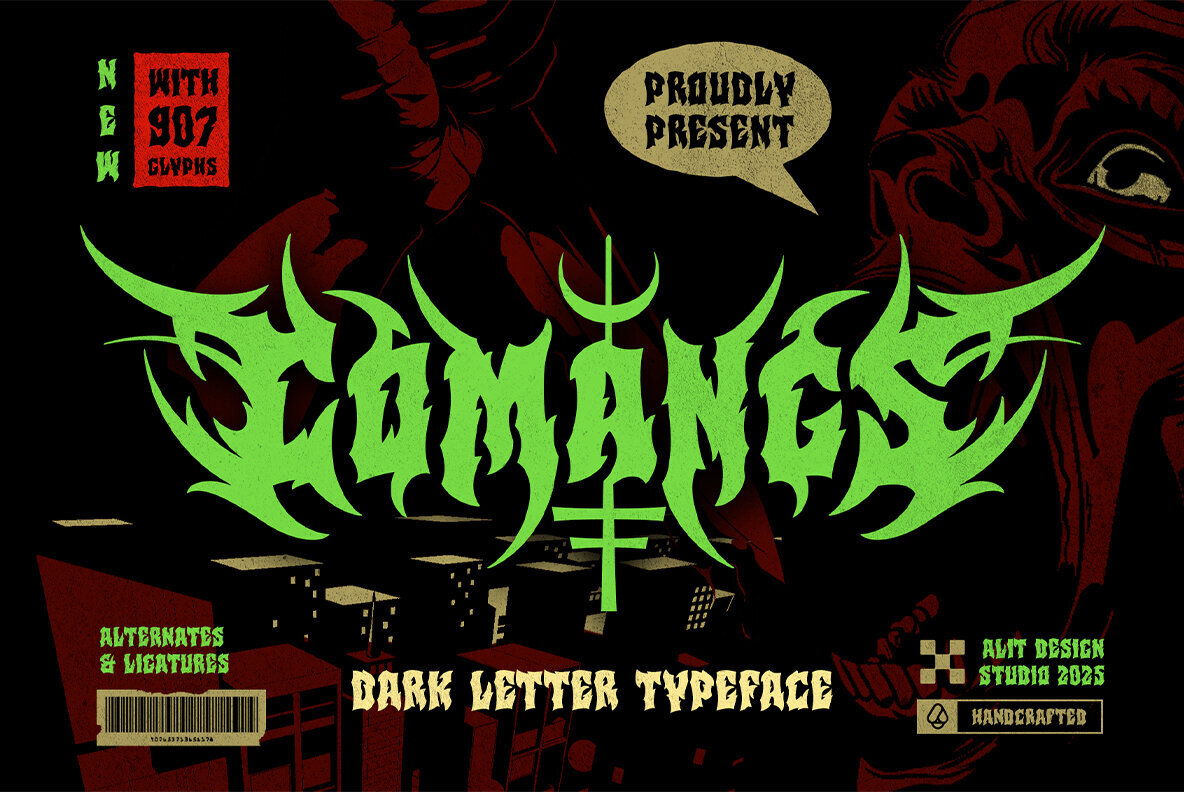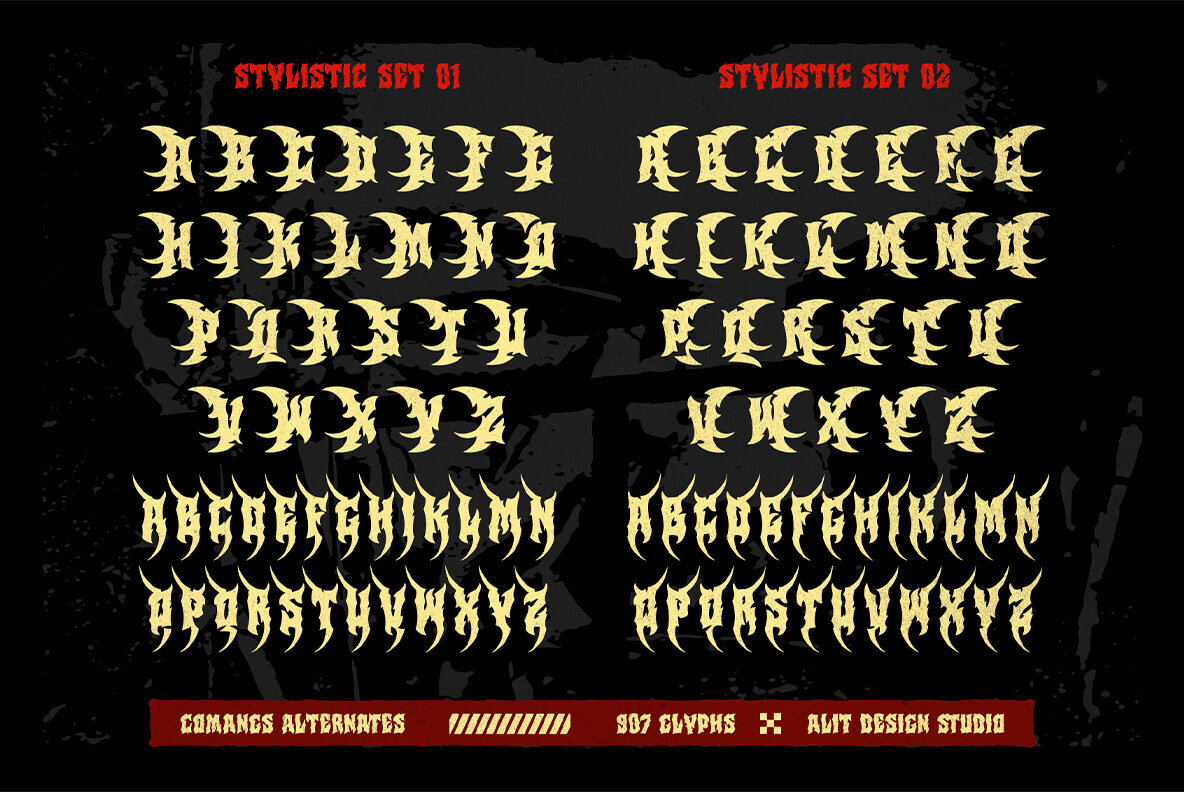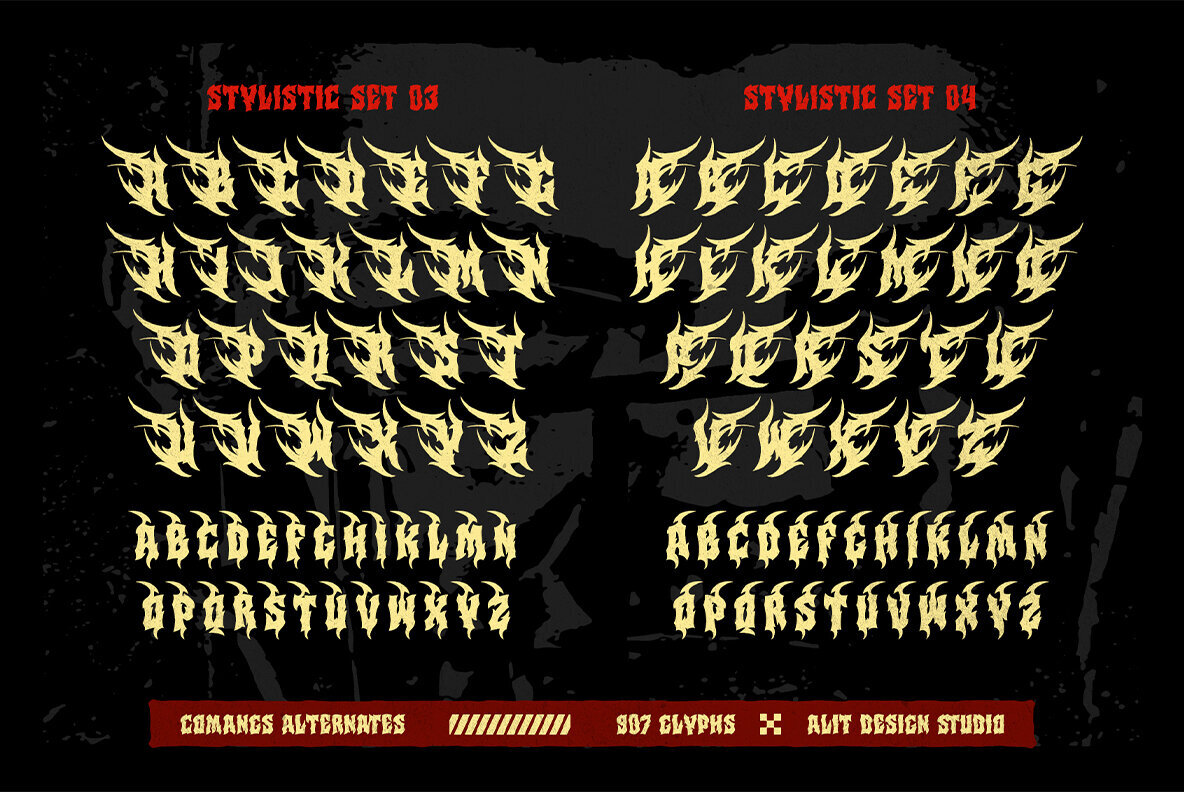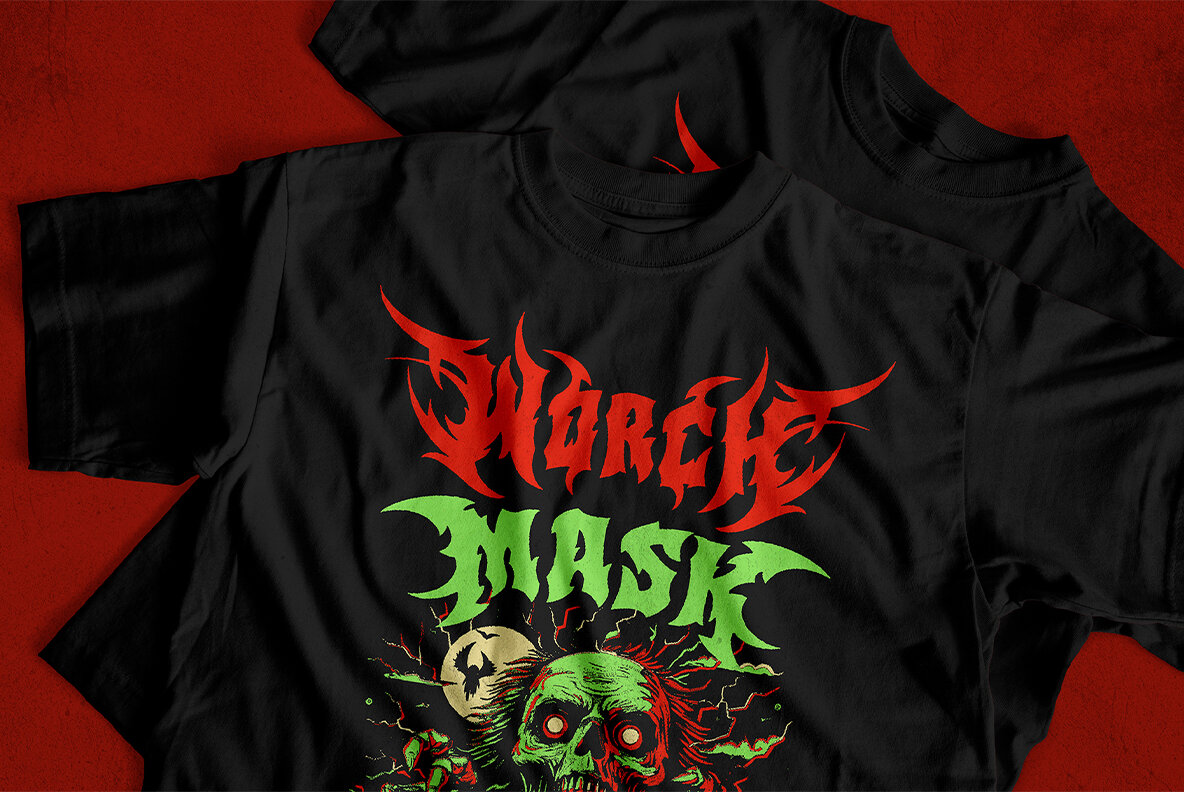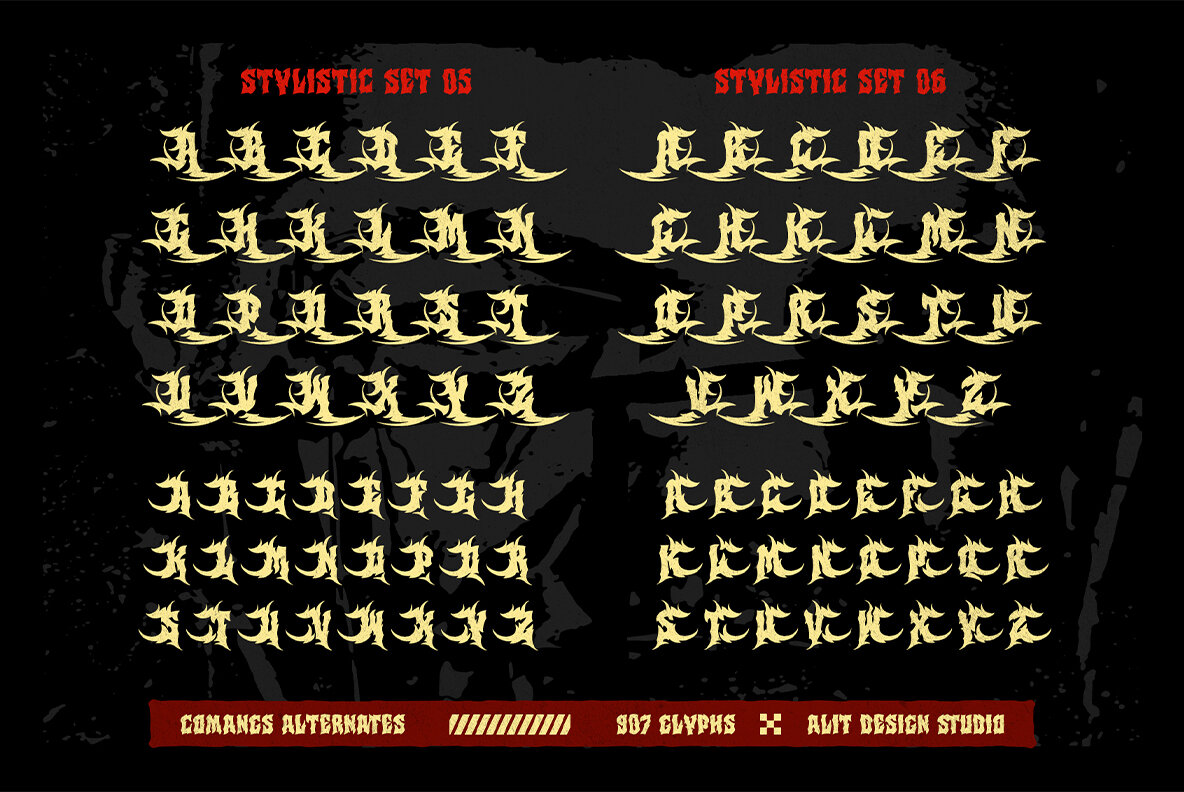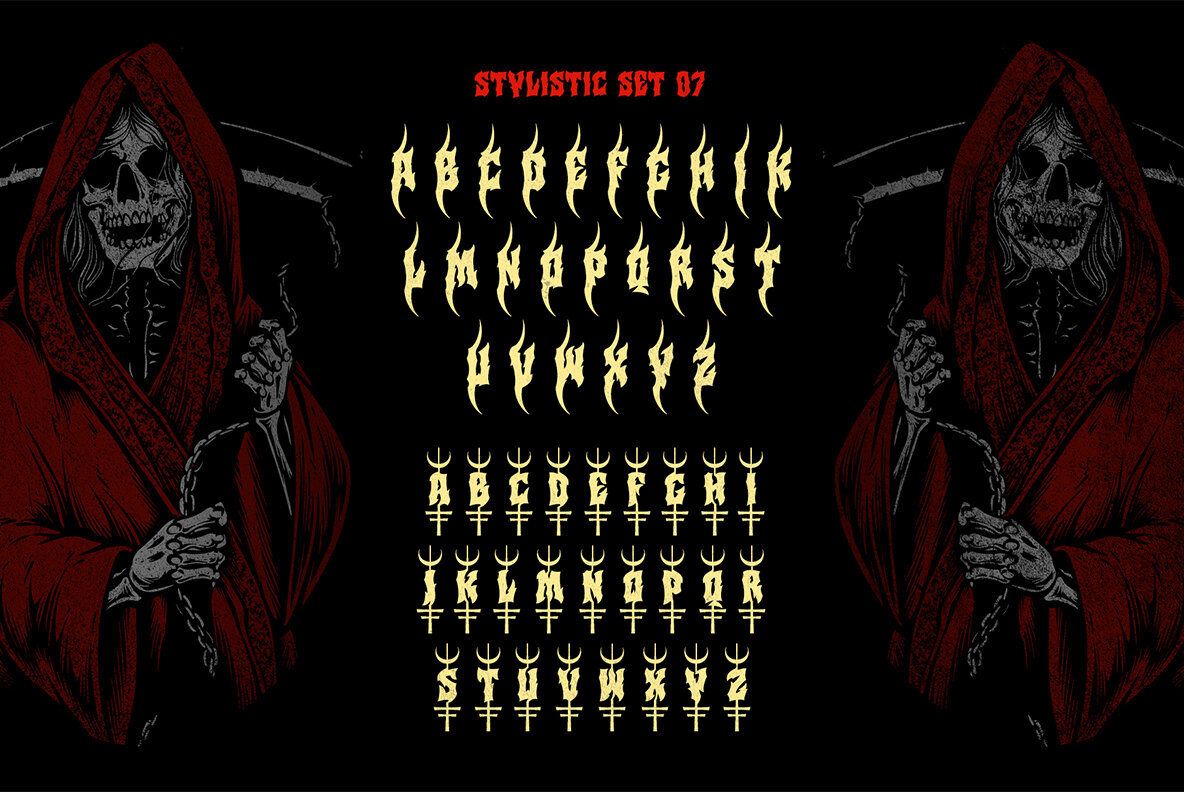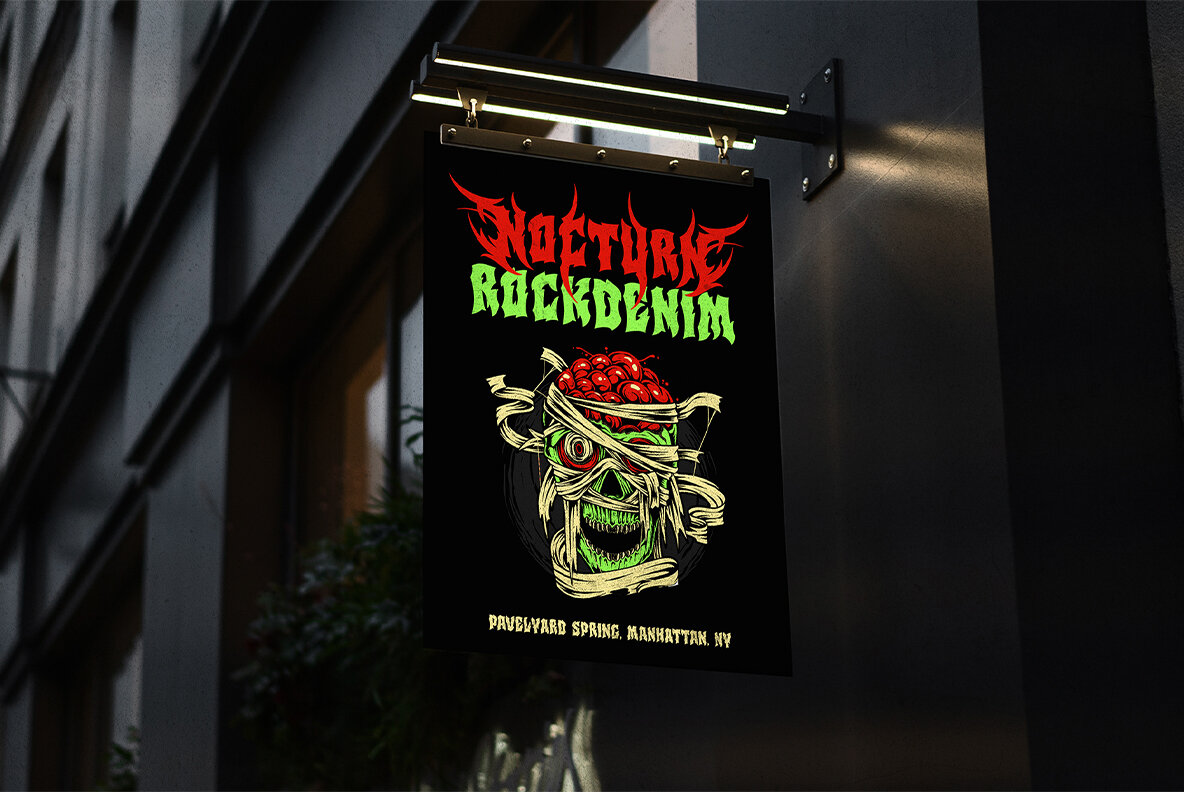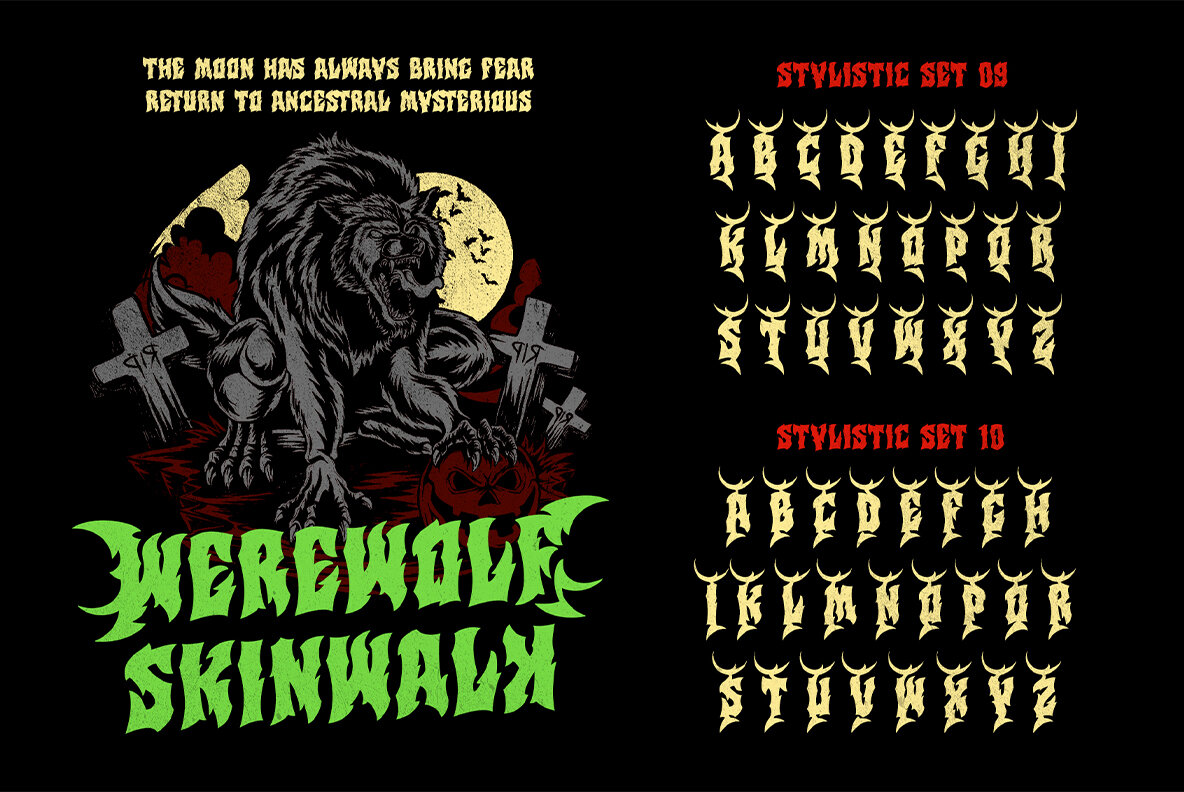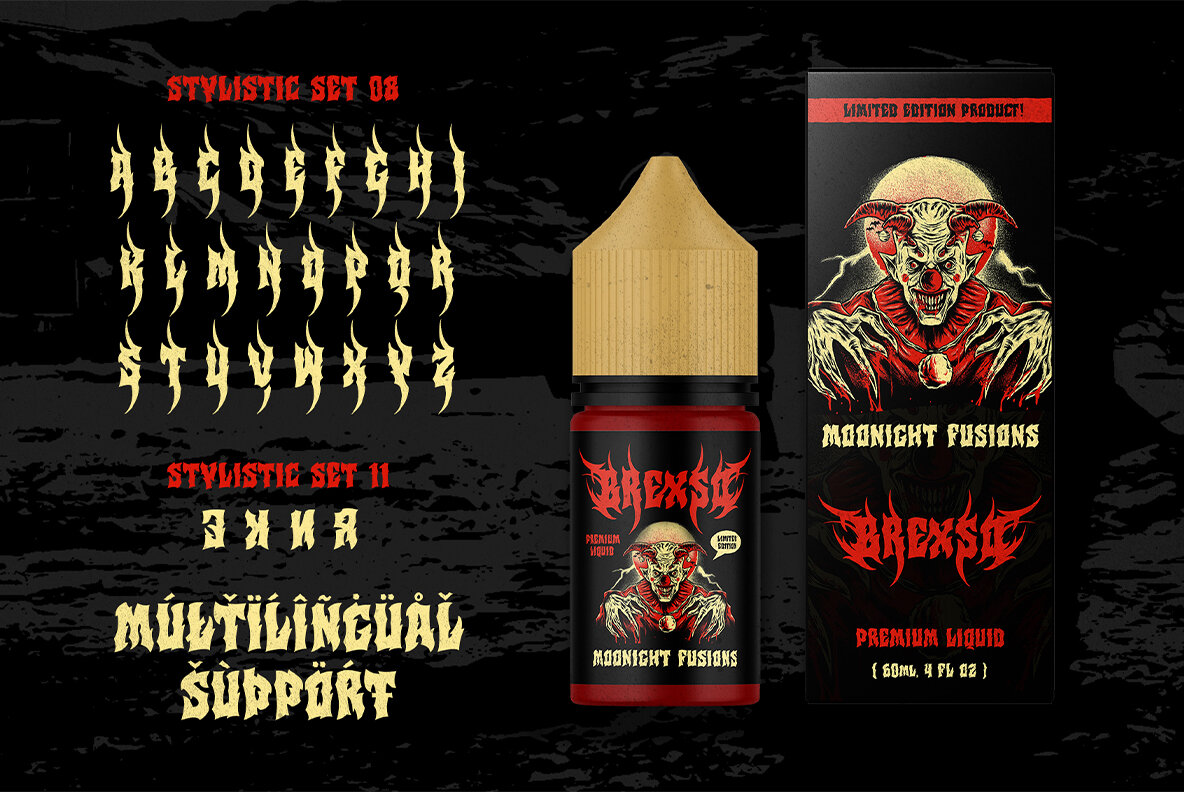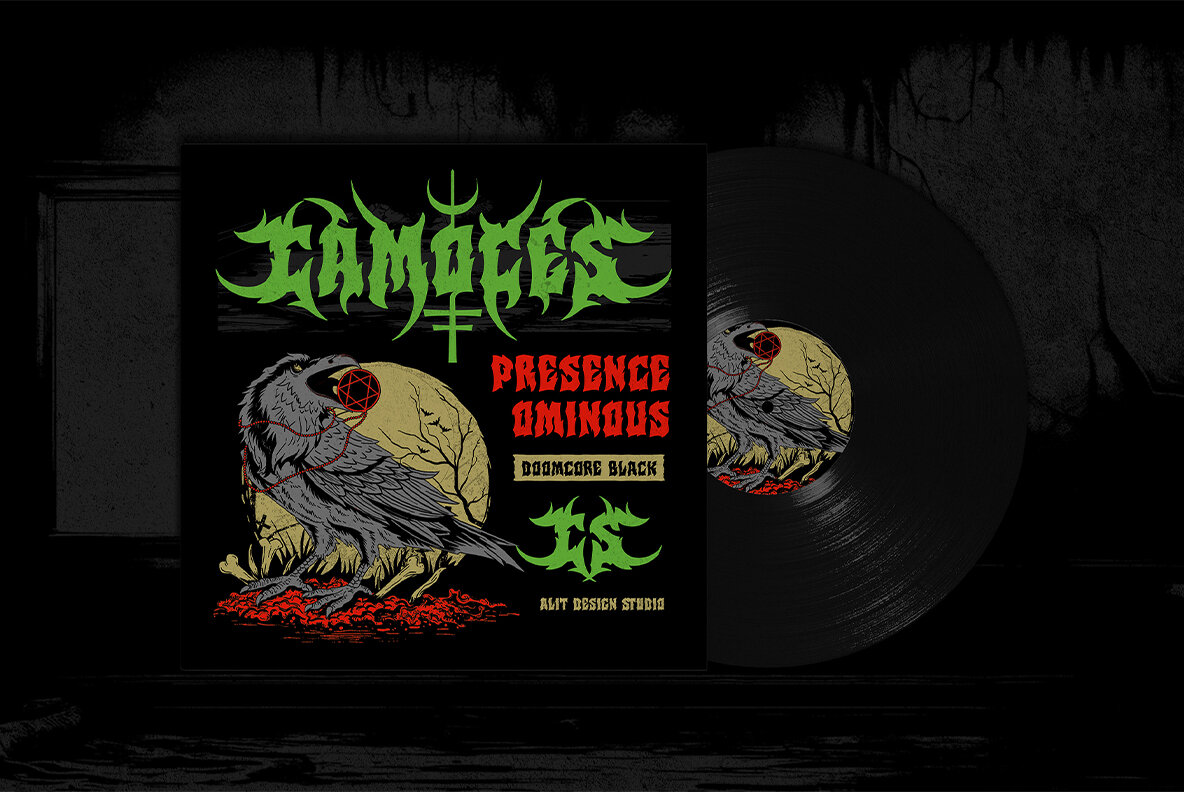
Comang Font
Comangs Regular
Dive into the world of twisted cartoon horror and urban nightmares with the Comang Typeface. This bold and dark letter font, crafted by Alit Design Studio, is perfect for creators ready to disturb the norm. With thorn-like serifs and aggressive curves, Comang offers a silhouette that captivates and cuts through the visual noise. Beneath its fierce exterior, it maintains a remarkable clarity, blending brutal design with readability. Comang isn't just a font—it's a statement. Perfect for making a bold impact in horror film branding, heavy metal album covers, and alternative fashion labels. Whether for extreme sports branding or gothic festival posters, Comang lets your words bleed emotion and scream rebellion. Bring your projects to life with the menacing charm of Comang.Unleash the Darkness with Comang Typeface
Font Vibe & Style
Core Features
Why Choose Comang?